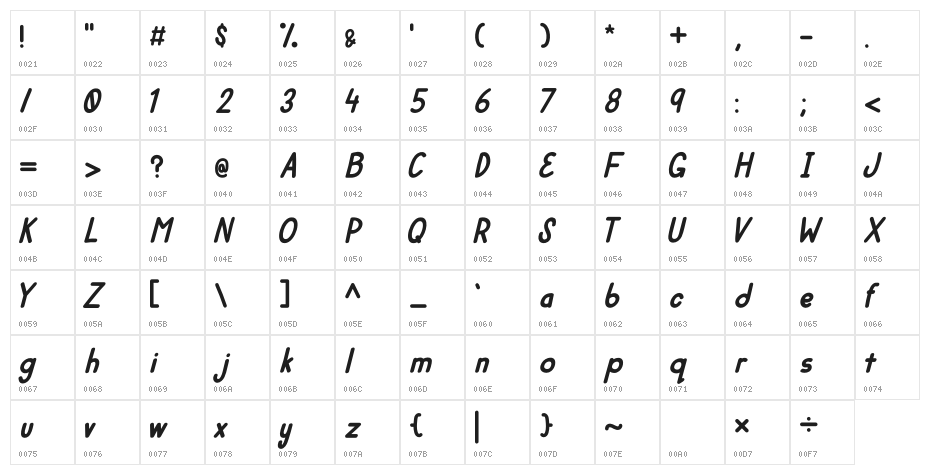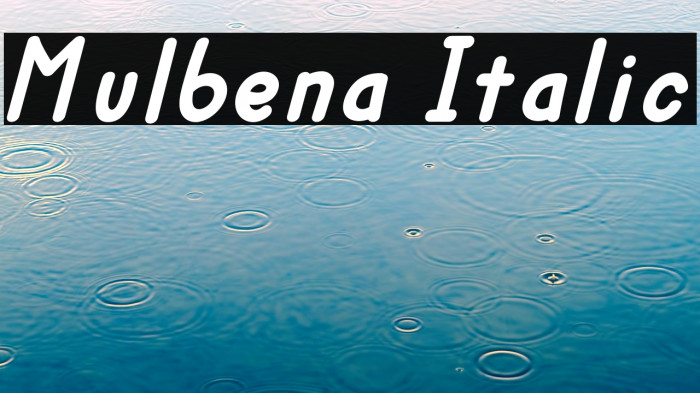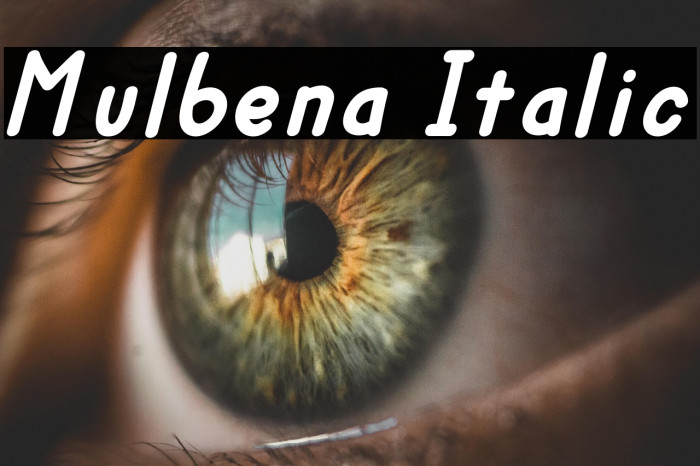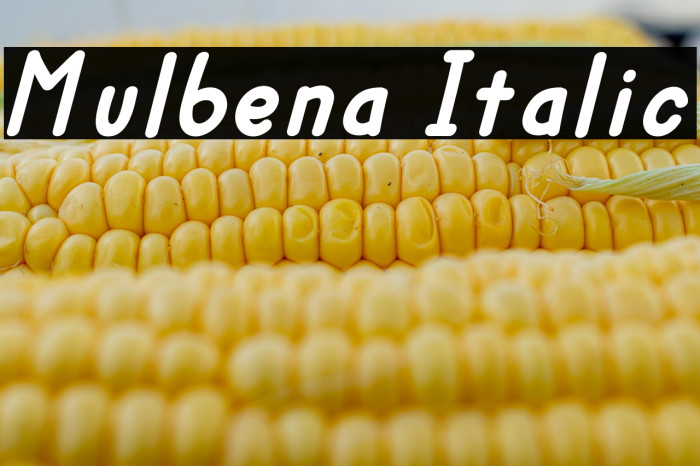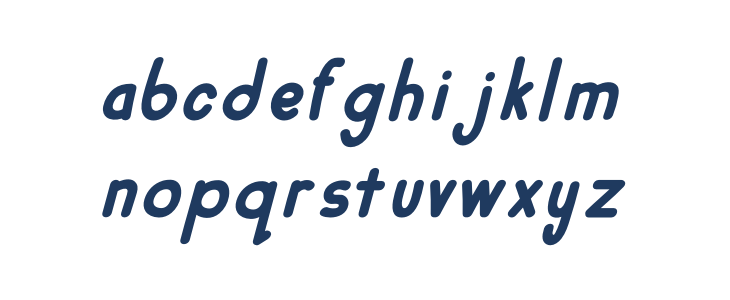
Mulbena Italic Font
Mulbena Italic Description
This font features a playful and casual handwritten style with a slight slant, giving it an italic appearance. The letters are rounded and smooth, providing a friendly and approachable feel. The uppercase and lowercase characters maintain a consistent flow, while the numerals and special characters integrate seamlessly with the overall design. The strokes are moderately thick, contributing to a medium contrast that enhances readability without compromising the font's informal charm.
| Use Case | Headlines, Logos, Social Media |
| Proposed Projects | Ideal for greeting cards, invitations, casual branding, and social media graphics. |